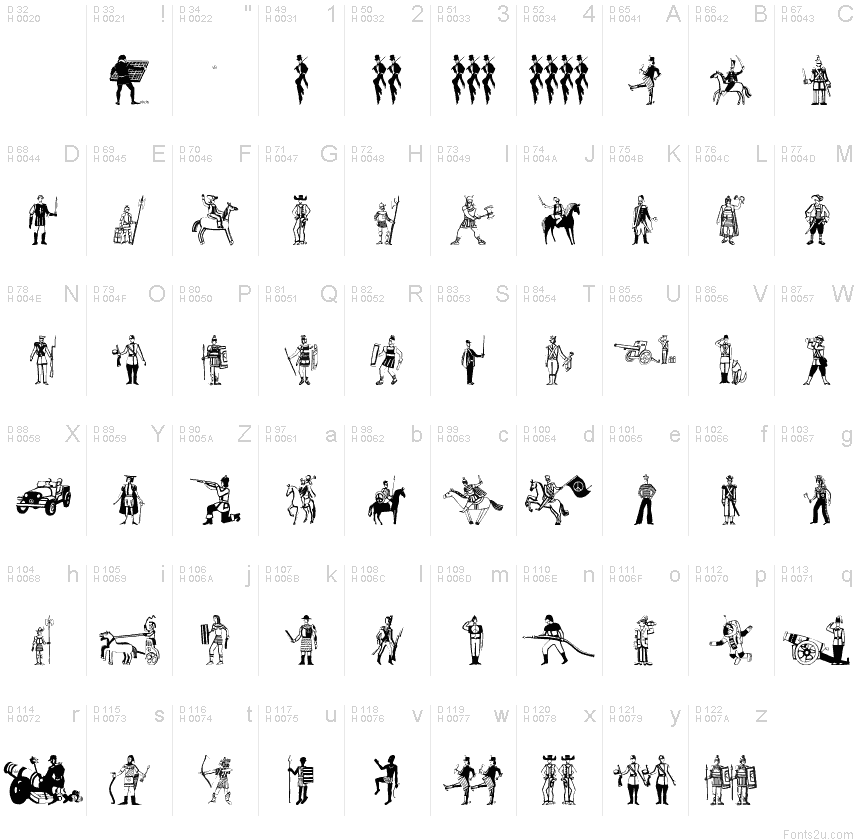
Peace Fighters One, credited to Manfred Klein, is a free cartoon military dingbat font built from hand-drawn figures rather than conventional letters. Its soldiers, guards, and mounted warriors use crisp outlines, striped clothing, stiff poses, and simplified period costume. The drawings are wiry and slightly comic.
Because each symbol functions like a small line illustration, the set can become part of posters, game graphics, or educational publishing about armies and historical conflict. Its playful treatment also fits children's activity sheets and themed event materials, especially for audiences who want martial imagery to read as theatrical rather than realistic.